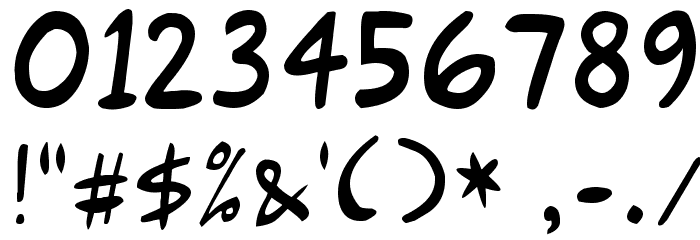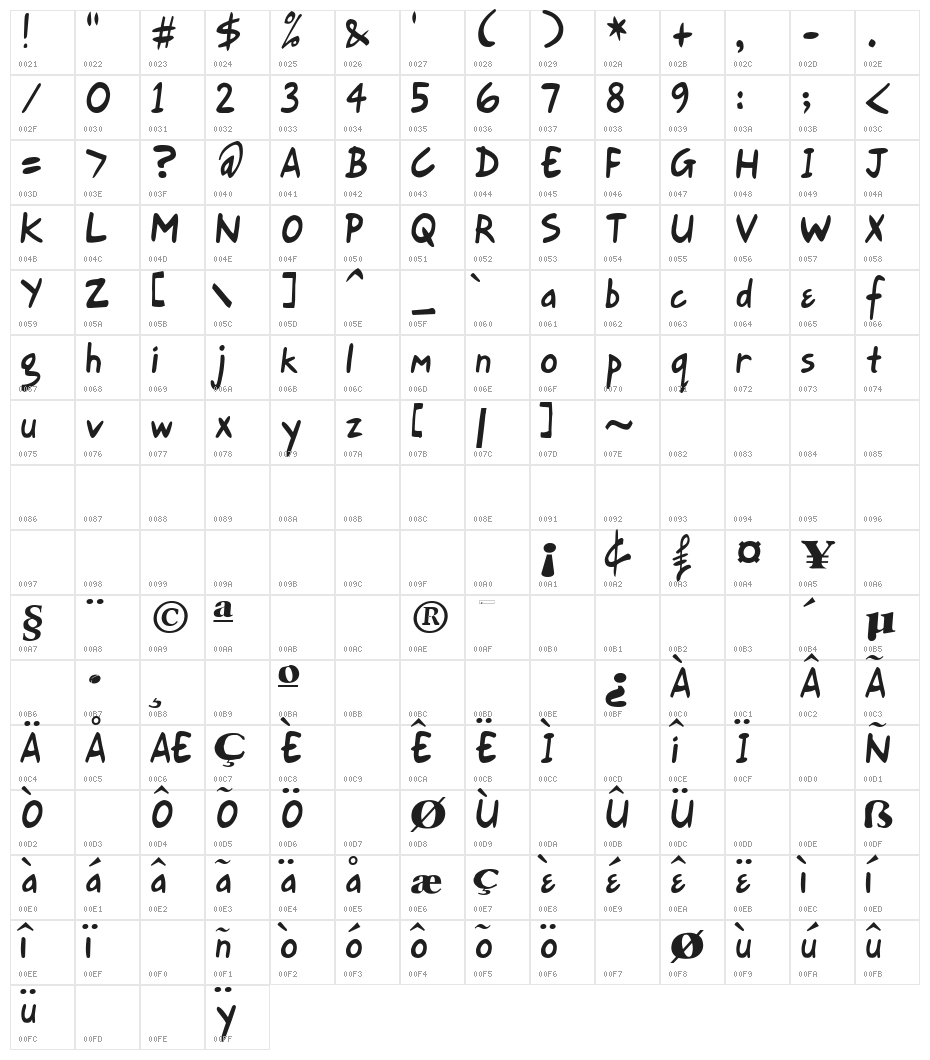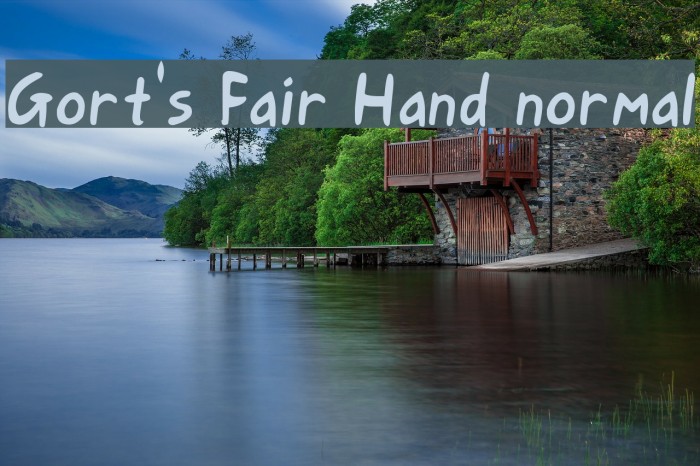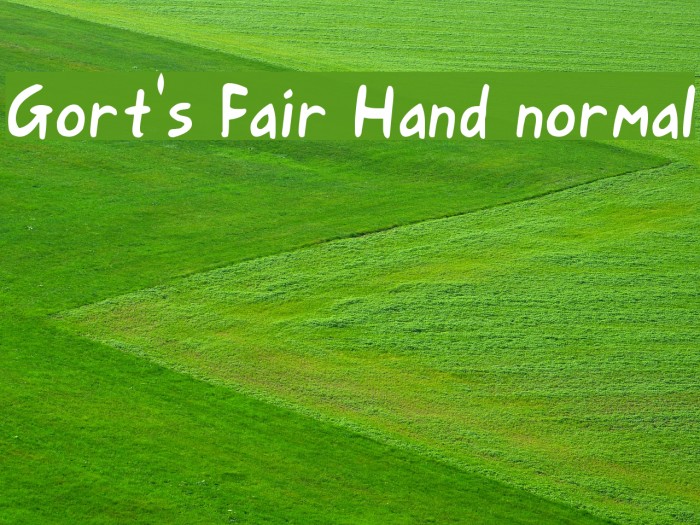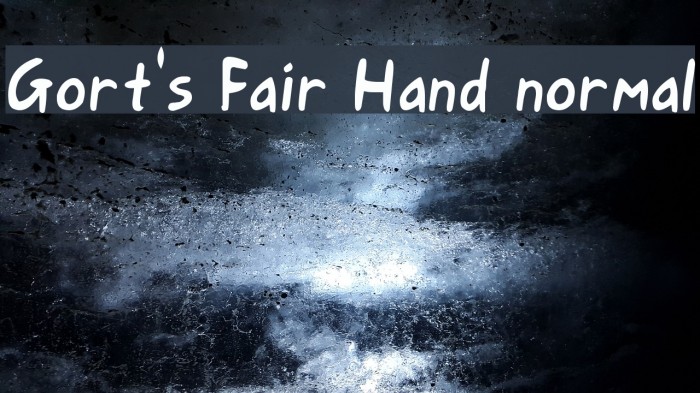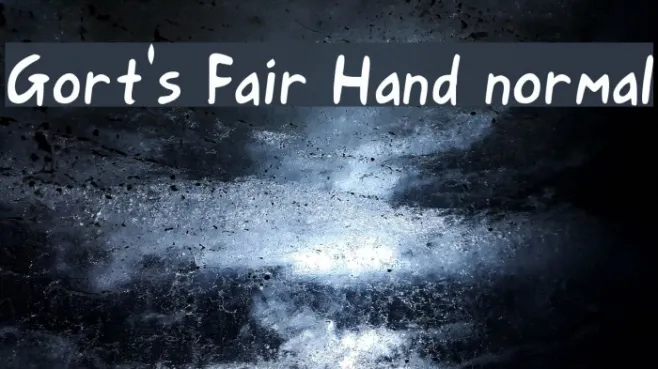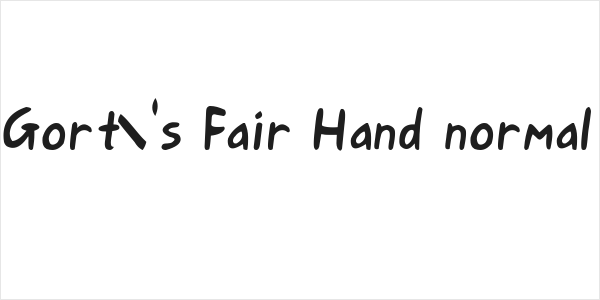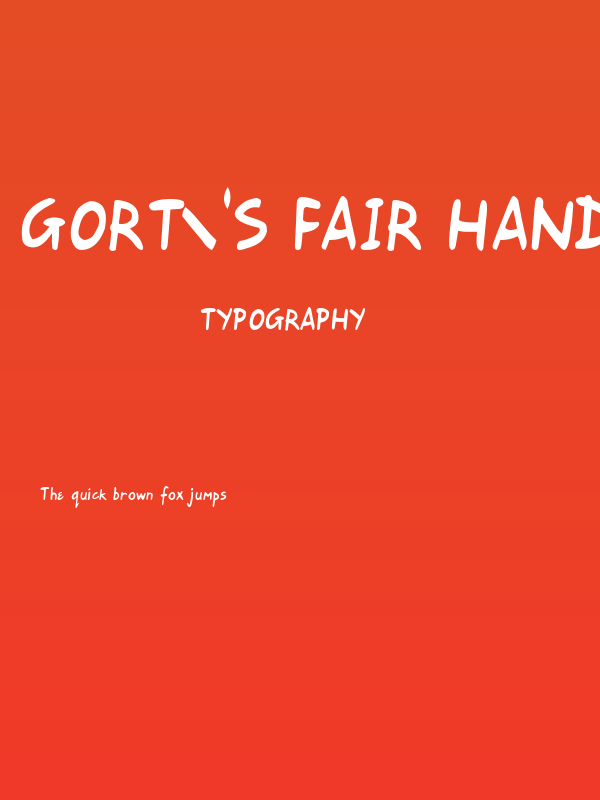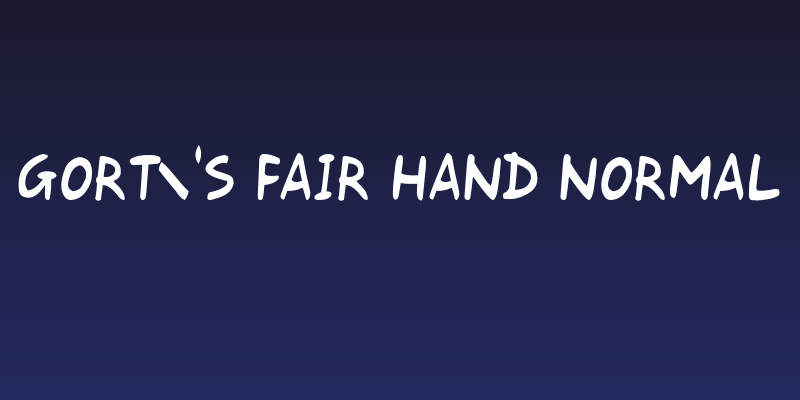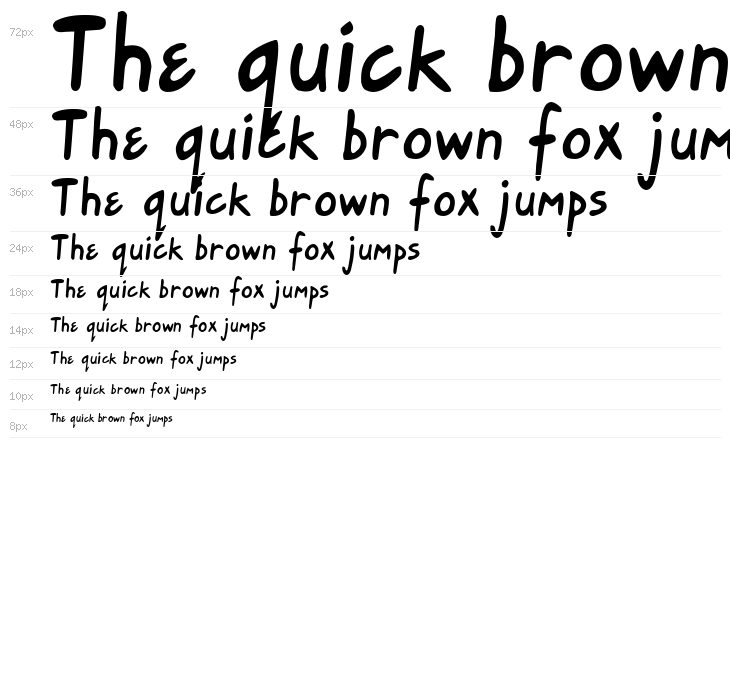
Gort's Fair Hand normal Font
Gort's Fair Hand normal Description
This font features a playful and casual handwritten style, characterized by its bold and slightly irregular strokes. The letters are rounded and have a friendly, approachable appearance, making it ideal for informal and creative projects. The uppercase and lowercase letters maintain a consistent flow, while the numerals and special characters complement the overall aesthetic. The font's organic feel is enhanced by its varying stroke widths, adding a touch of authenticity and warmth.
| Proposed Projects | Ideal for greeting cards, children's books, casual branding, and creative posters. |